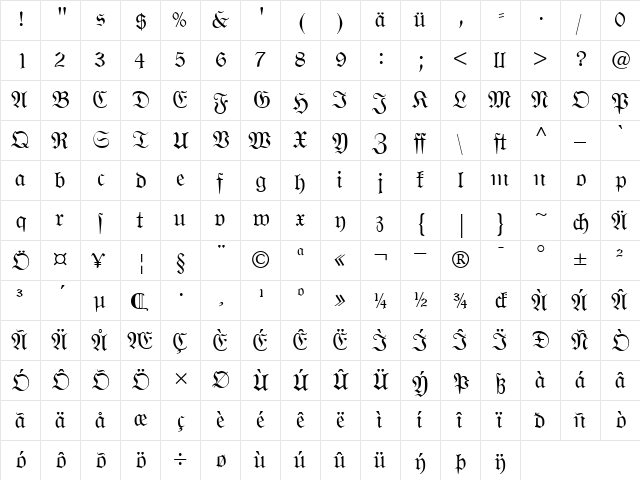
WittenbergerFrakturMTDfr Roman Font Preview
WittenbergerFrakturMTDfr Roman
WittenbergerFrakturMTDfr Roman Font Details
Design Context for WittenbergerFrakturMTDfr Typeface
WittenbergerFrakturMTDfr draws on the rich tradition of blackletter calligraphy, with dense, angular strokes that evoke medieval manuscripts and old-world craftsmanship.
Well-suited to band logos, craft beer branding, tattoo lettering, and heritage-themed identities.
Font Pairing: Pair with a clean neutral sans-serif for body copy to let WittenbergerFrakturMTDfr's character lead without overwhelming the composition.
Pro Tip: Use WittenbergerFrakturMTDfr sparingly at large sizes. Even a single word set in blackletter can define the visual register of an entire design.